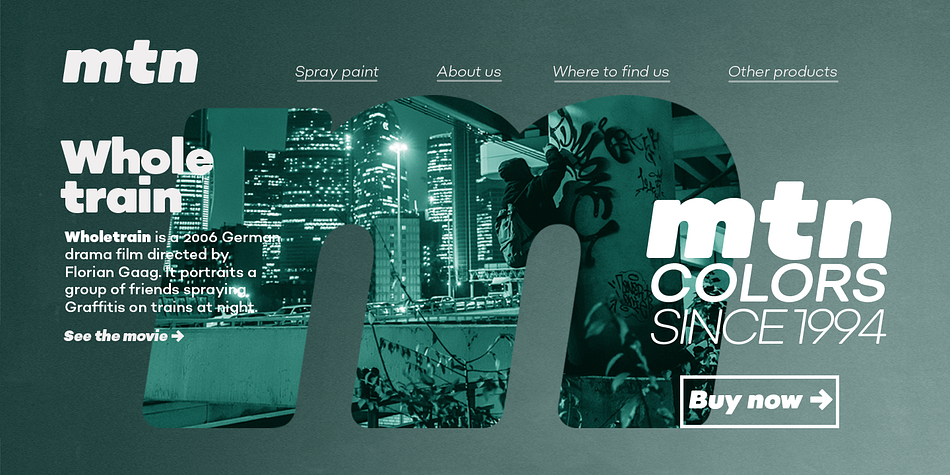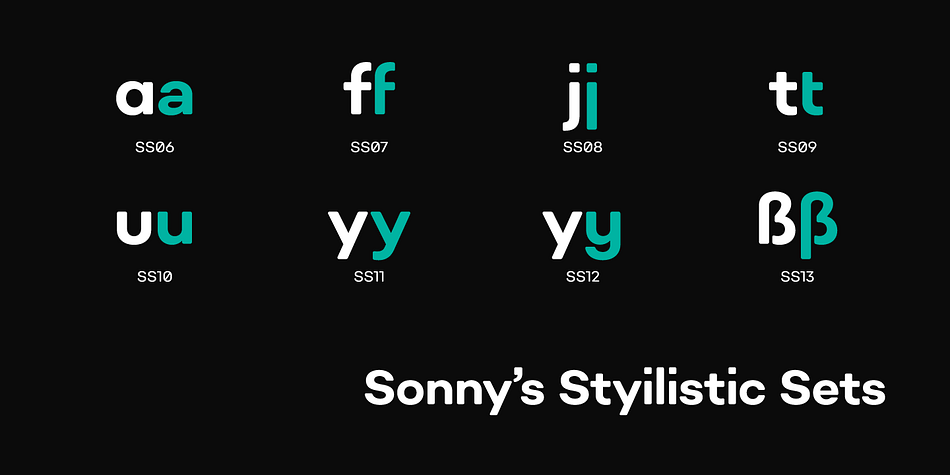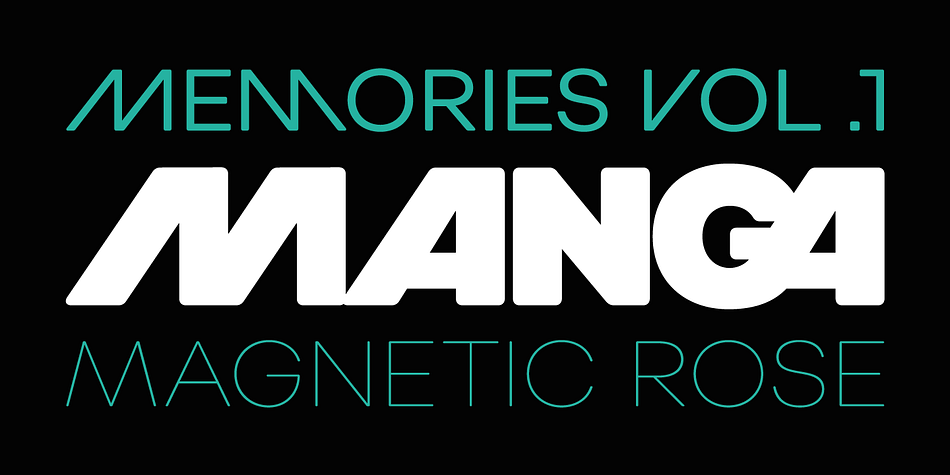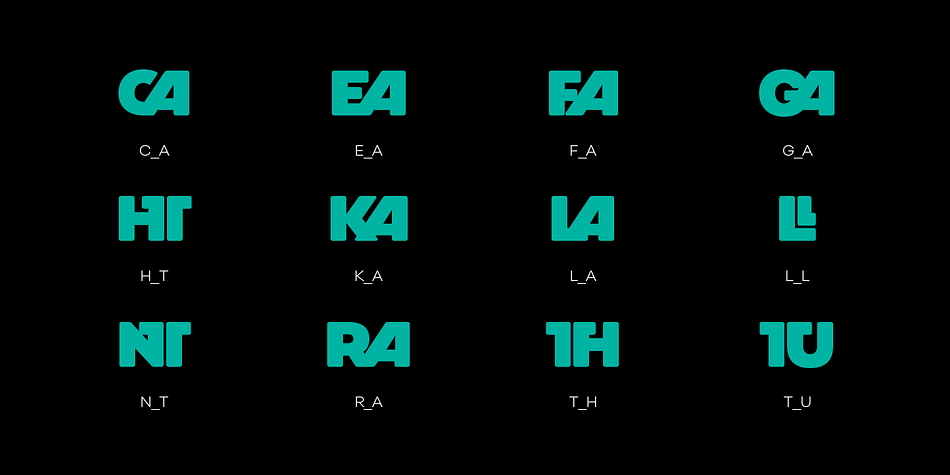
Sonny Gothic Vol 2
Designed by Salvador Rodríguez and Gaspar Muñoz, Sonny Gothic Vol 2 is a sans serif font family. This typeface has eighteen styles and was published by W Type Foundry.
Sonny Gothic Vol 2 is an extension of our popular font Sonny Gothic. All corners have been softened to get a friendlier and fluffy visual language. As Sonny Gothic, this typeface has ligatures inspired by the incredible work of Herb Lubalin, chiefly Avant Garde. We designed carefully Sonny’s Vol 2 ligatures, and we also created new ones to control the whites formed between softened characters such as FL, FB, FD, FE, FF, FH, FI, FK, FN, and FR.
Developed with powerful OpenType features in mind. Each weight includes alternate characters, ligatures, fractions, special numbers, arrows, extended language support, small caps, and many more. Perfectly suited for graphic design advertising.